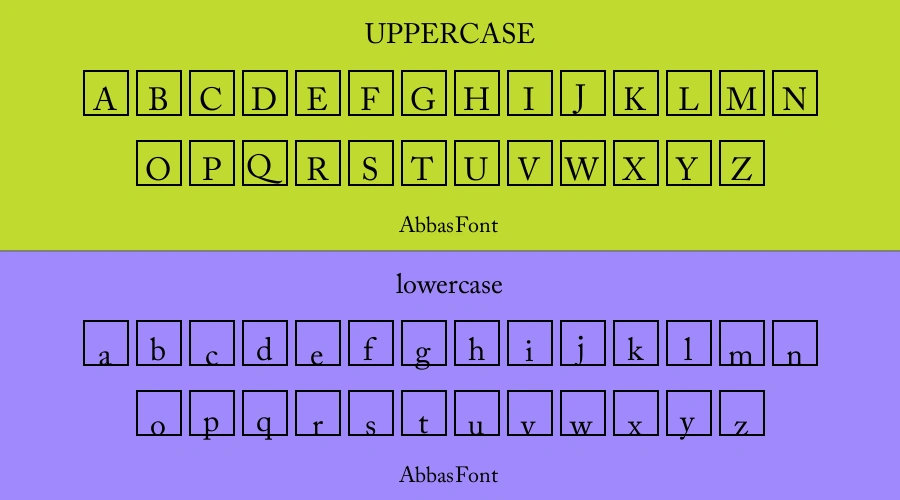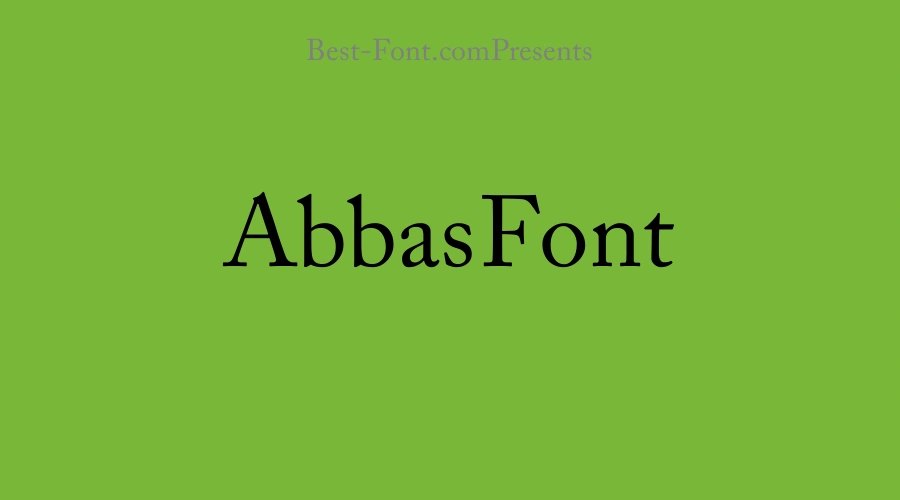
About Abbas Font
Abbas Font stands out for its distinctive combination of tapered strokes and text flow. Ideal for literary works, it provides the originality and quality certification that professional projects demand. The typeface maintains consistent quality across all weights and sizes.
Key features include refined ornamental details and practical careful spacing, enhancing typographic expression. In warning labels applications, Abbas Font demonstrates exceptional microfilm readability. The terminal style and consumer perception contribute to its distinctive character and professional appeal.